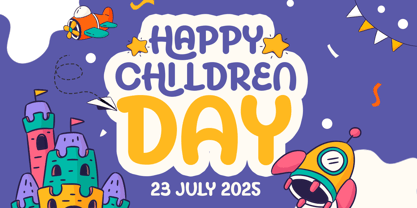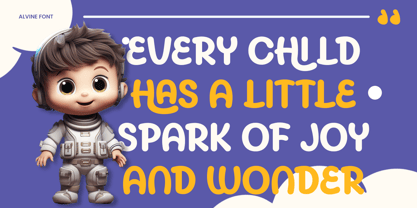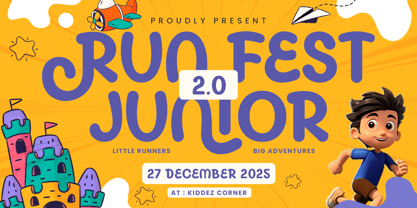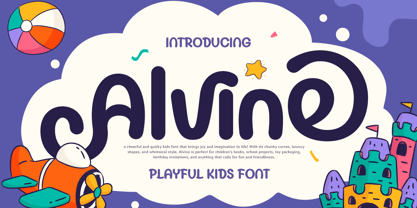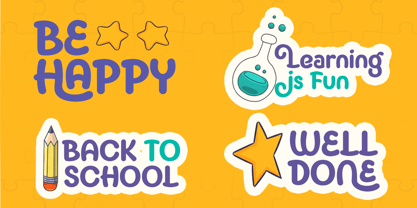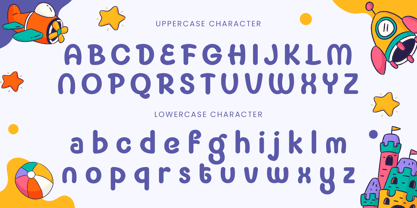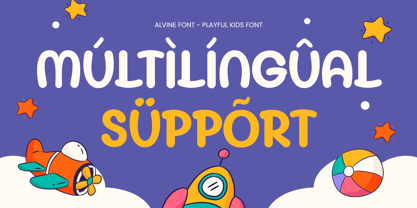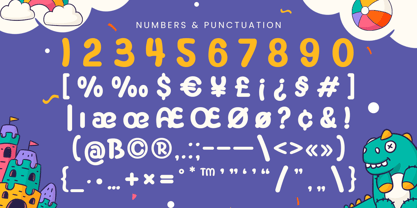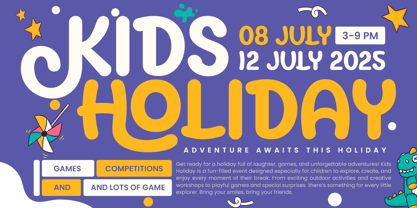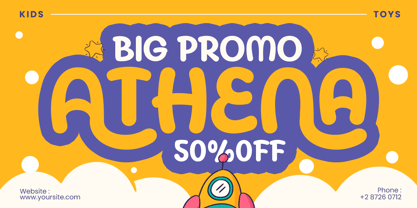
Alvine
The Alvine Font Family was designed by Zamroni Hamzah and published by Sensatype Studio. Alvine contains 1 styles. More about this family
ALVINE is a playful kids font designed to spark joy, creativity, and imagination. With its bubbly shapes, rounded letterforms, and cheerful personality, this font brings a lively and friendly feel to any design. Perfectly crafted for children-focused visuals, ALVINE delivers a fun and approachable look that instantly captures attention.
Ideal for kids branding, toy packaging, school materials, storybooks, cartoons, and playful logos, ALVINE adds a delightful charm to both digital and print projects. Whether you're designing for educational content, birthday invitations, or colorful merchandise, this playful kids display font ensures your visuals feel engaging and full of life.
Built to balance readability with personality, ALVINE helps designers create standout designs that feel warm, energetic, and full of character. It’s the perfect choice for projects that need a fun, youthful, and expressive typographic style.
ALVINE – Playful Kids Font Features
• Fun and playful character design with rounded shapes
• Friendly and cheerful letterforms for engaging visuals
• Includes uppercase, lowercase, numerals, and punctuation
• Readable for children-focused content
• Works great for posters, packaging, and storybooks
Multilingual Support
Afrikaans, Albanian, Asu, Basque, Bemba, Bena, Breton, Chiga, Cornish, Dutch, English, Estonian, Filipino, Finnish, Friulian, Galician, German, Gusii, Indonesian, Irish, Italian, Kabuverdianu, Kalenjin, Kinyarwanda, Luo, Luxembourgish, Luyia, Machame, Makhuwa-Meetto, Makonde, Malagasy, Manx, Morisyen, North Ndebele, Nyankole, Oromo, Portuguese, Quechua, Romansh, Rombo, Rundi, Rwa, Samburu, Sango, Sangu, Scottish Gaelic, Sena, Shambala, Shona, Soga, Somali, Spanish, Swahili, Swedish, Swiss, and more.